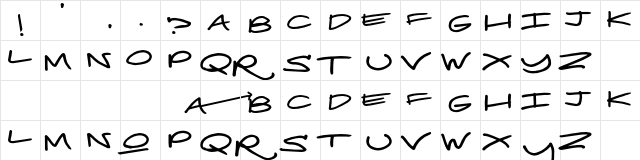
Real Toyz Regular
Design Context for Real Toyz Typeface
Real Toyz is a composed and adaptable typeface that performs quietly and consistently across a wide range of design contexts.